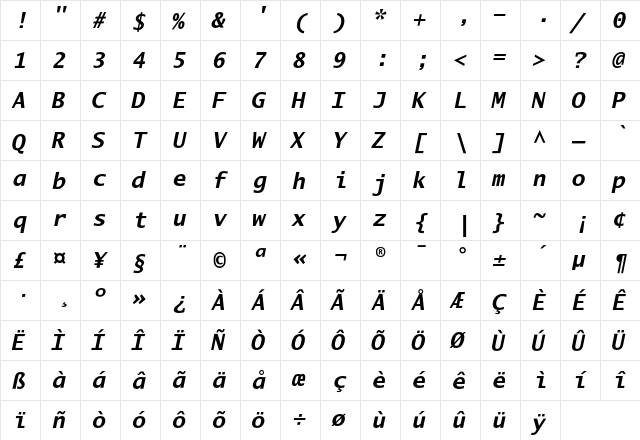
LucidaMonoEF BoldItalic Font Preview
Design Context for LucidaMonoEF Typeface
LucidaMonoEF brings the precise, column-aligned rhythm of monospaced typography to designs that value technical clarity and systematic order. Its italic angle brings a sense of urgency and motion to the letterforms. Its bold stroke weight gives it real presence on the page.
Pro Tip: Pair LucidaMonoEF with a proportional sans for UI contexts where code-style labels and regular body copy need to coexist.